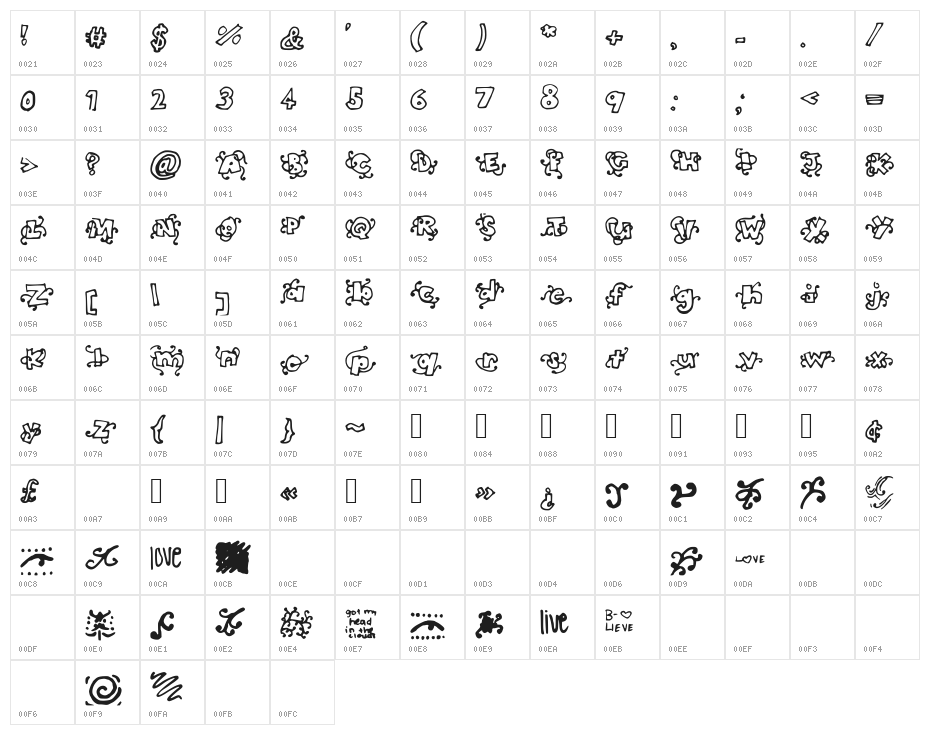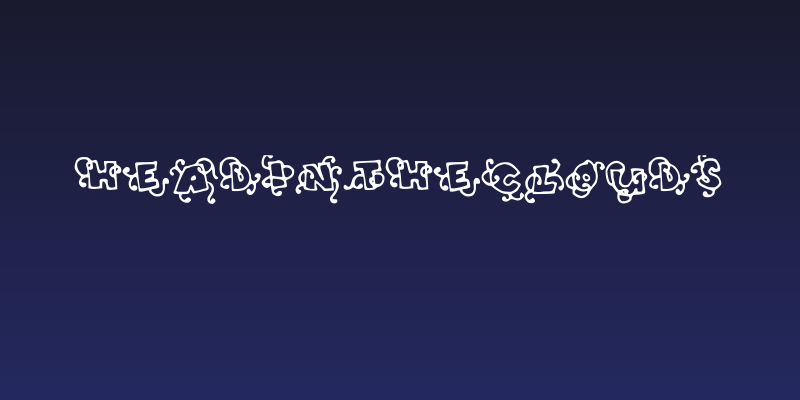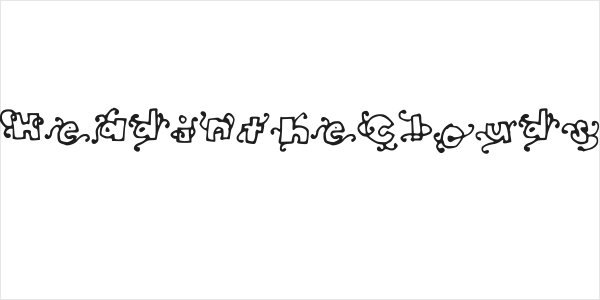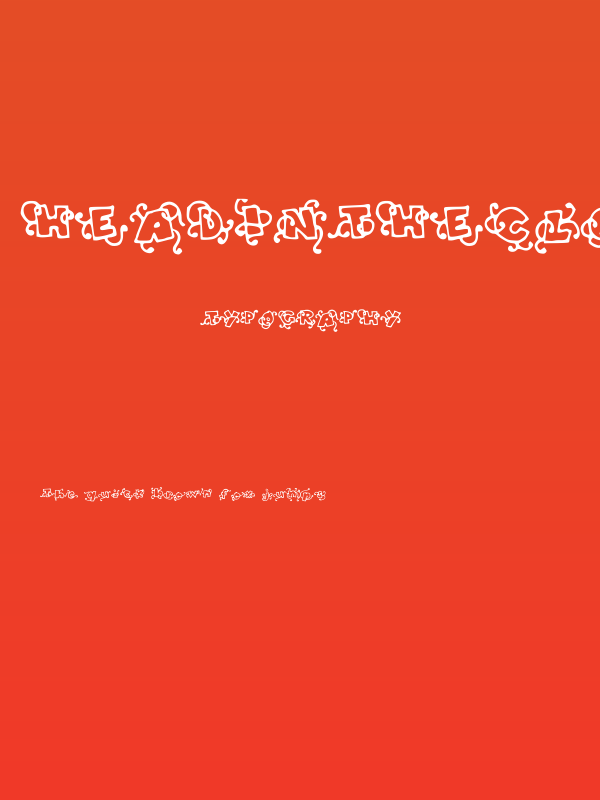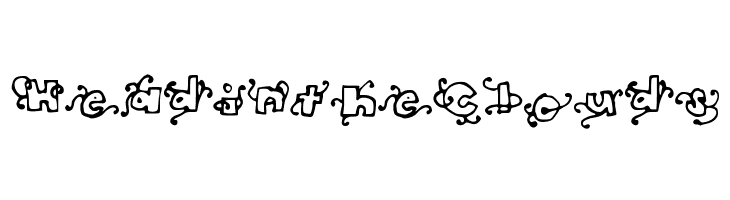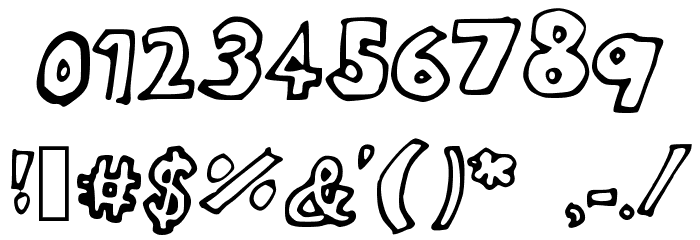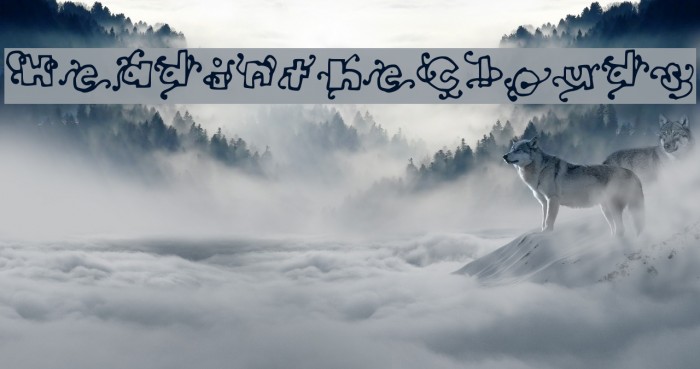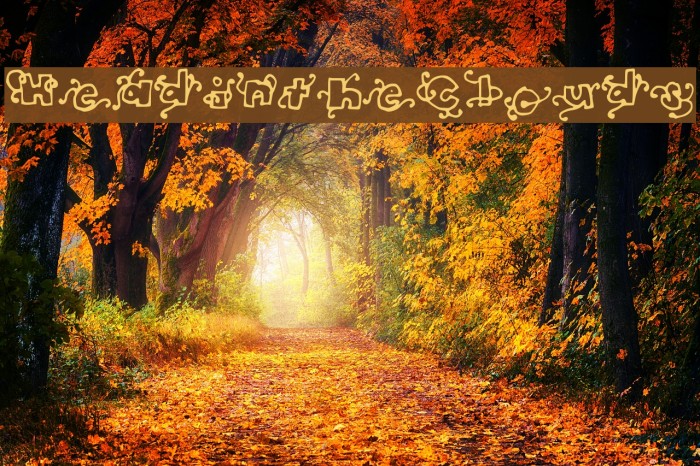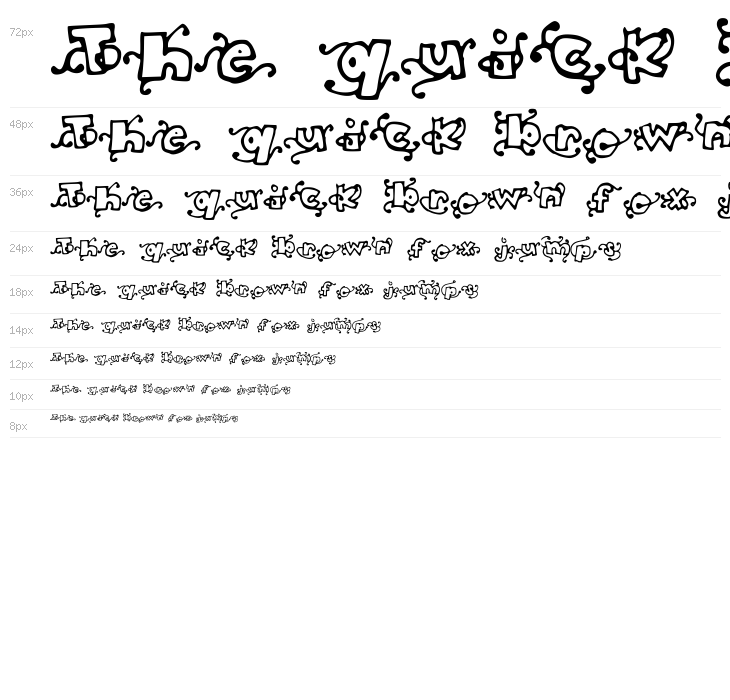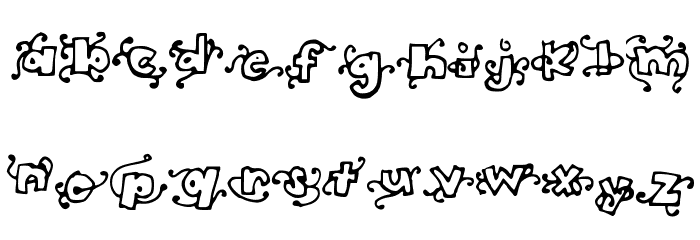
HeadintheClouds Font
This whimsical and playful font features a unique design with swirling, cloud-like embellishments on each character. The letters are bold and rounded, with a hand-drawn feel that adds a touch of creativity and fun. The uppercase and lowercase letters maintain a consistent style, while the numbers and special characters are equally expressive, making the font versatile for various creative projects. Its decorative nature makes it stand out, perfect for capturing attention in any design.
| Proposed Projects | Ideal for children's book covers, playful branding, greeting cards, and creative posters. |